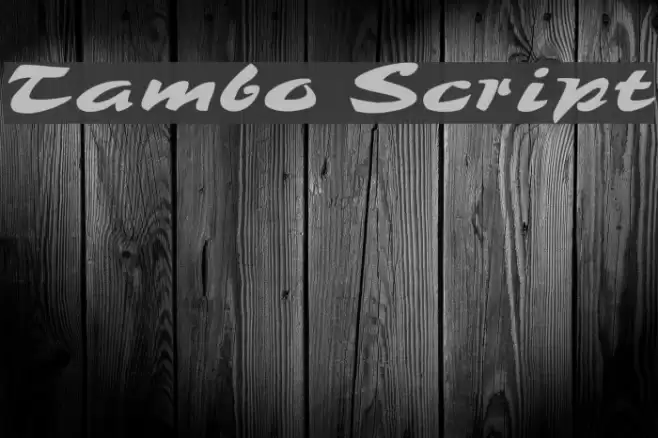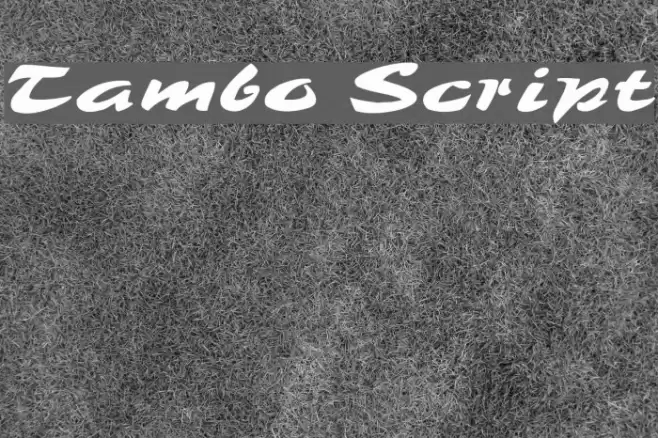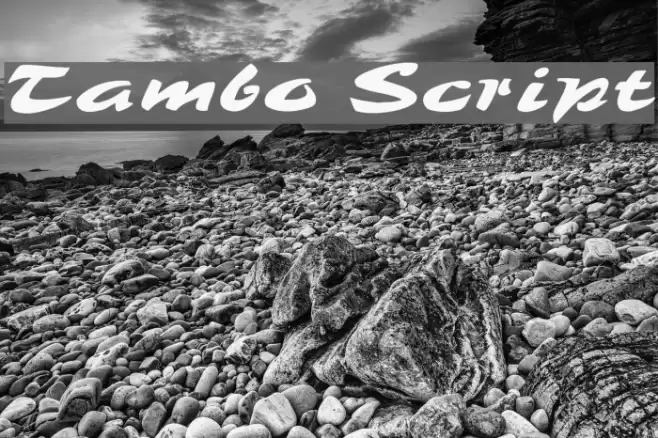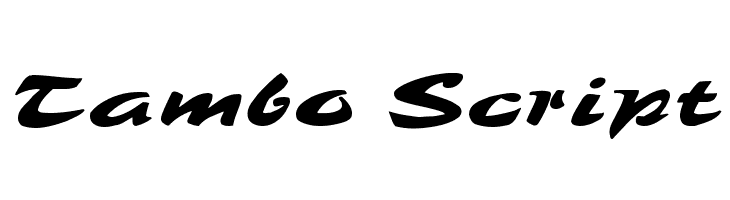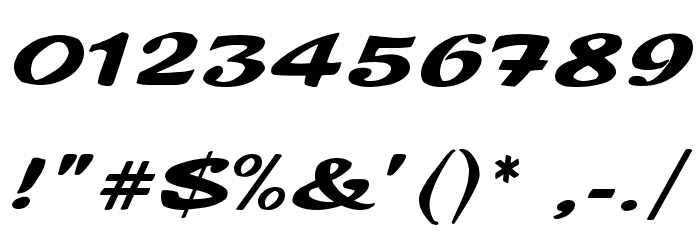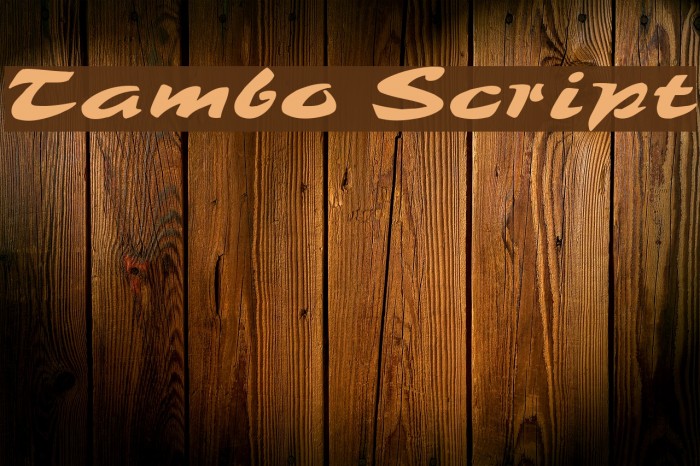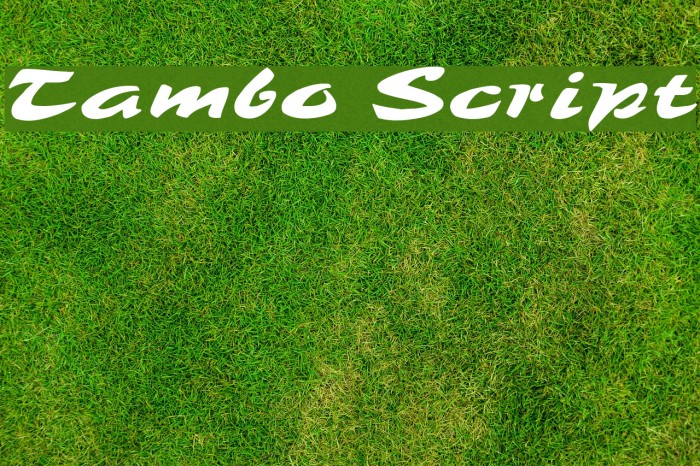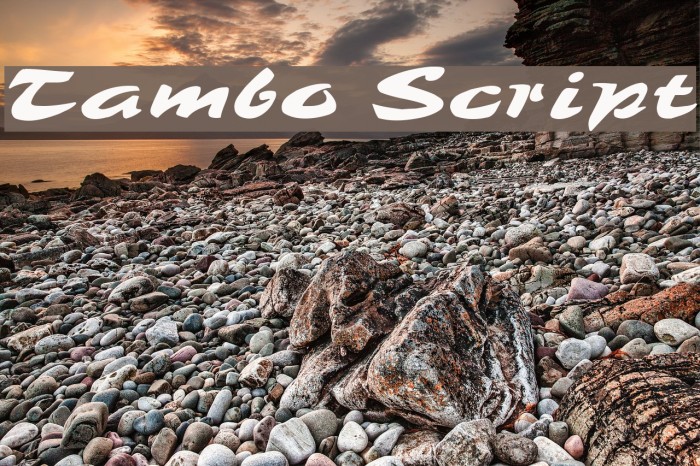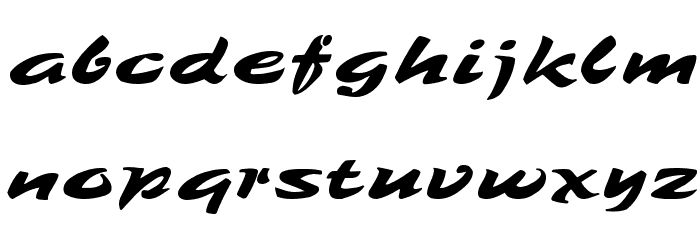
Tambo Script Font
Tambo Script Description
This font exudes a dynamic and energetic style, characterized by its flowing, cursive script. The letters are interconnected, creating a sense of movement and fluidity. The strokes are bold and confident, with a slight slant that enhances its lively appearance. The uppercase letters are distinct and prominent, while the lowercase letters maintain a consistent rhythm. The numbers and special characters are crafted with the same attention to detail, ensuring uniformity across the font. This script is ideal for projects that require a personal touch or an artistic flair.
A dynamic, bold cursive script with flowing, interconnected letters from Uncategorized fonts.
- Proposed Projects: Ideal for invitations, branding, logos, and creative projects that require a personal or artistic touch.
- Use Case: Logos, Invitations, Creative Projects